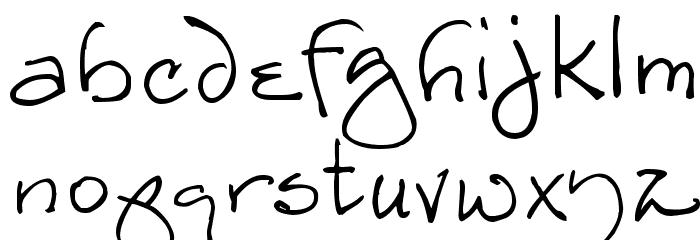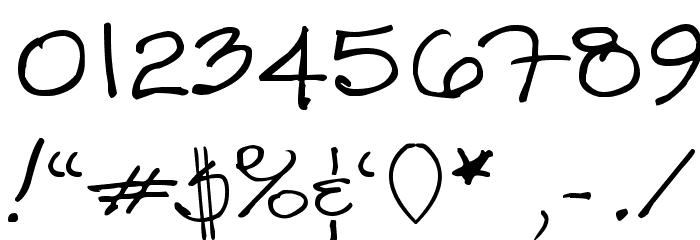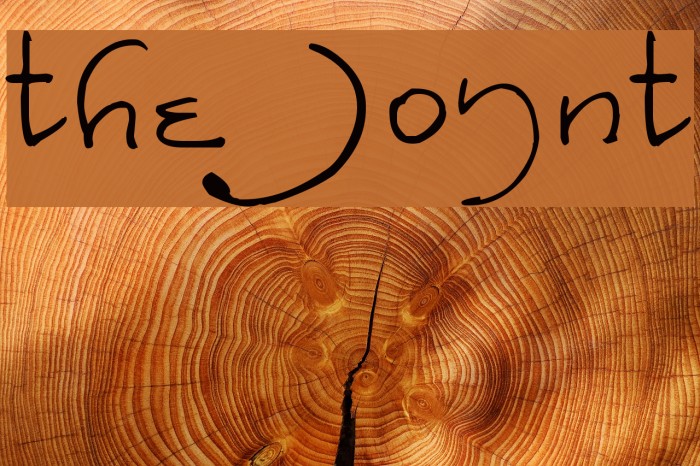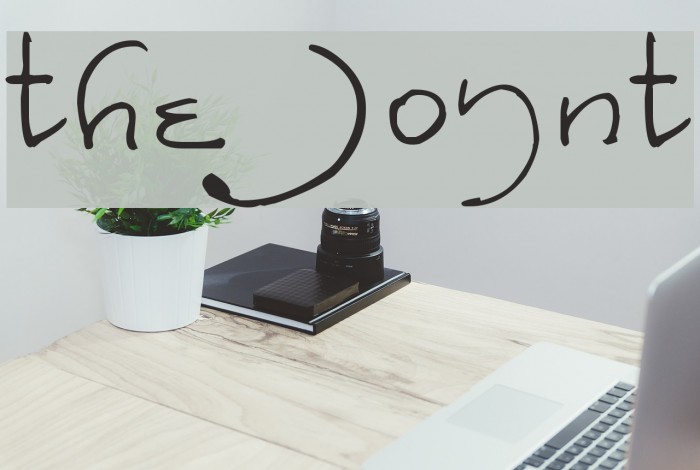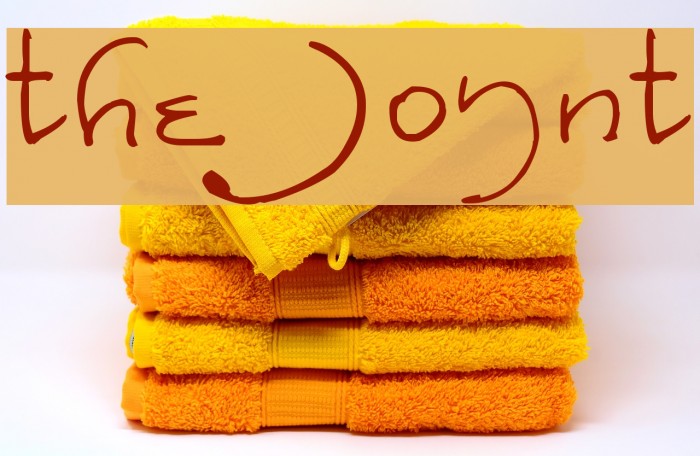
the Joynt Font
This font exhibits a playful and informal handwritten style, characterized by its fluid and dynamic strokes. The letters are slightly slanted, giving a sense of motion and energy. The uppercase and lowercase characters maintain a consistent style, with rounded edges and varying stroke thickness that adds a personal touch. The numerals are equally expressive, matching the overall whimsical aesthetic. Special characters are creatively integrated, enhancing the font's versatility. This font is ideal for projects that require a casual and friendly tone, such as invitations, greeting cards, or creative branding.
A playful, handwritten font with fluid strokes and a casual vibe.
- Proposed Projects: Ideal for invitations, greeting cards, creative branding, and playful designs.
- Category: Handwritten
- Overall Style: Casual, Playful
- Use Case: Headlines, Logos, Invitations